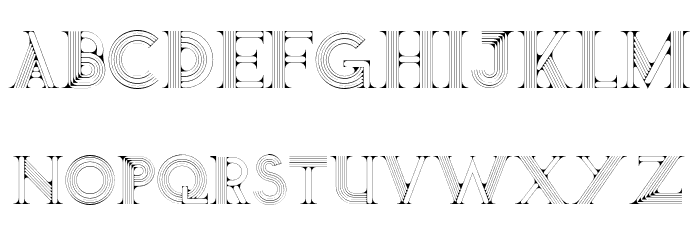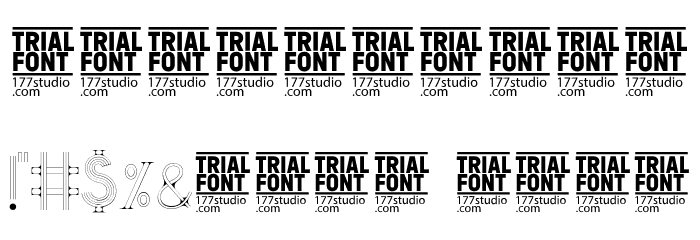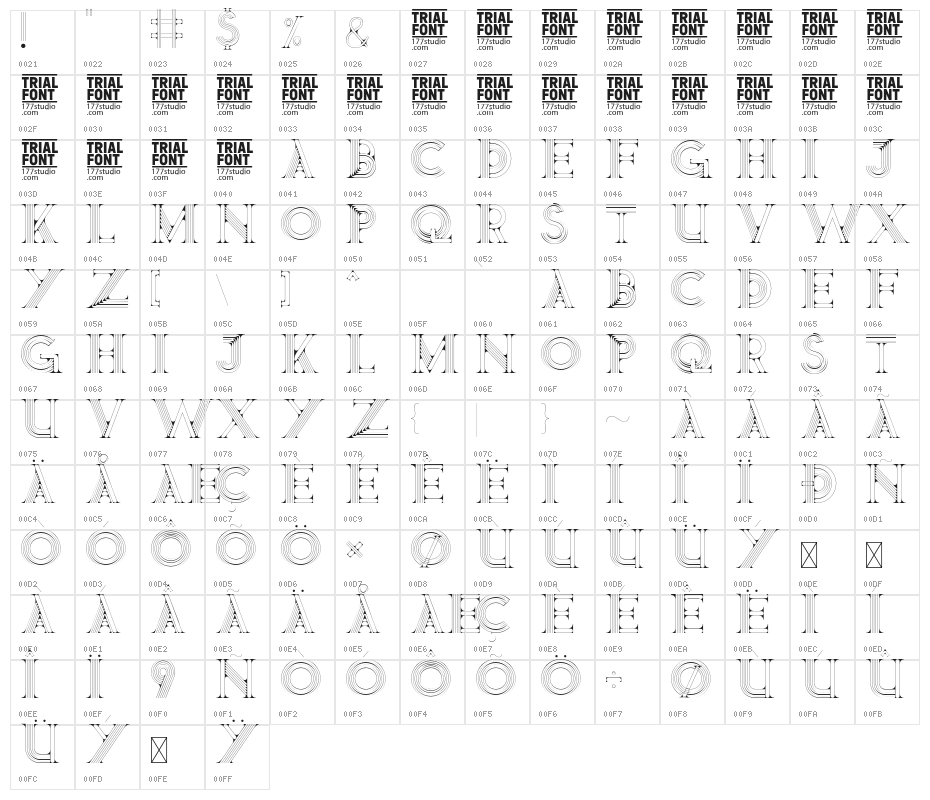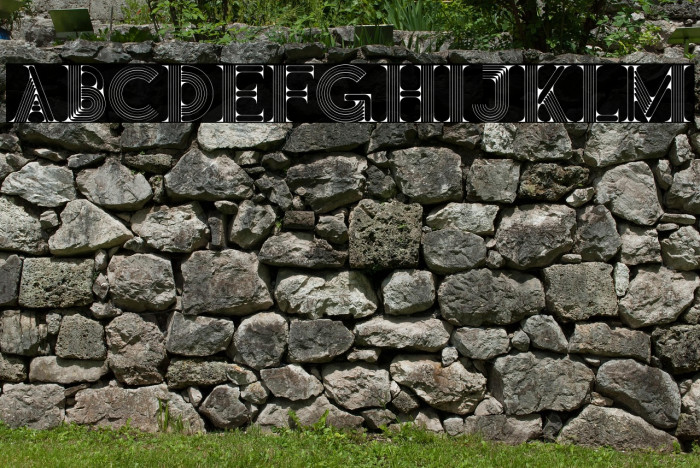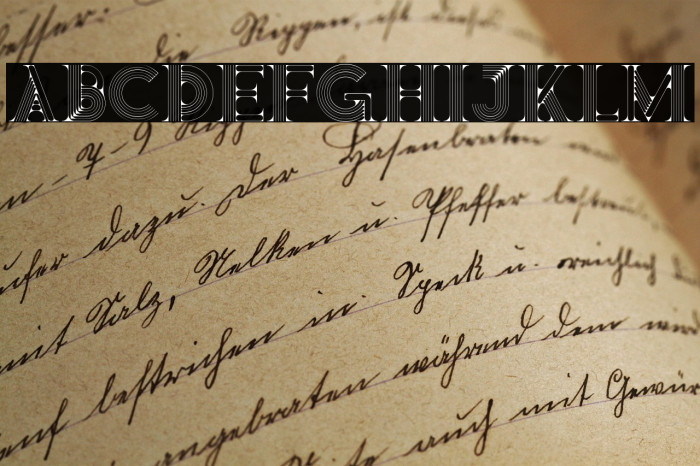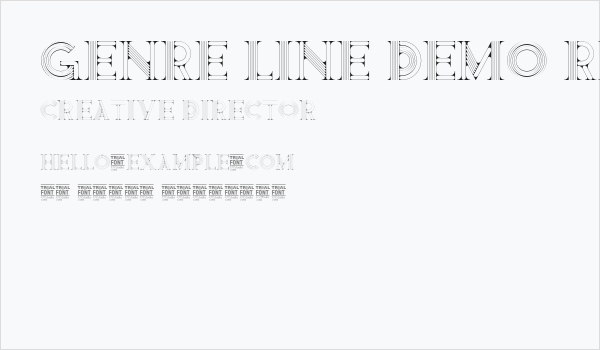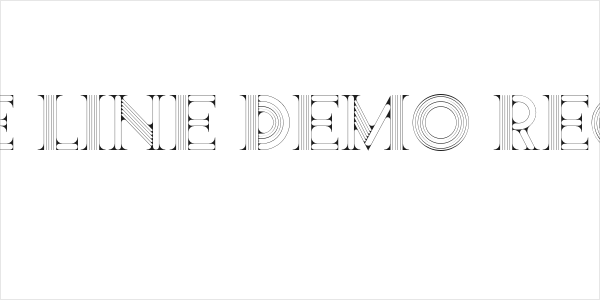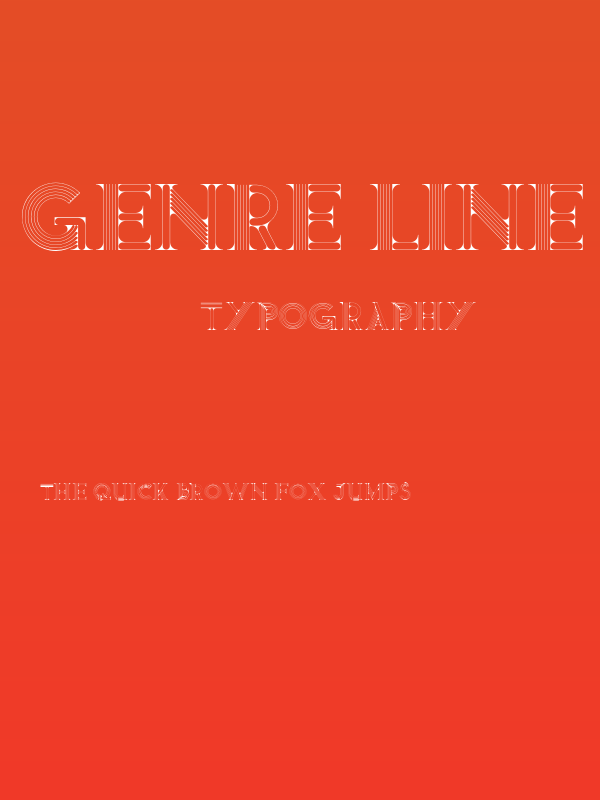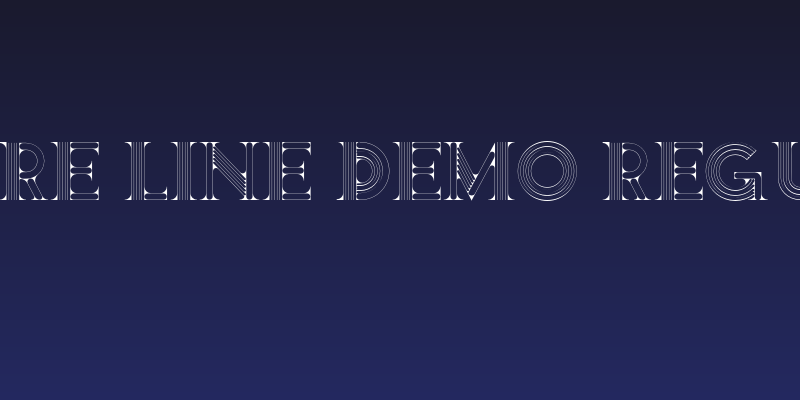
Genre Line Demo Regular Font
This font features a unique and modern design characterized by its multi-line, geometric structure. Each character is composed of several parallel lines, creating a sense of depth and dimension. The uppercase and lowercase letters maintain a consistent style, with clean, sharp edges and a balanced form. The numerals and special characters follow the same design principles, ensuring uniformity across all glyphs. This font's distinct appearance makes it suitable for creative and artistic projects where a bold statement is desired.
A modern, multi-line geometric font with a bold and artistic style.
- Proposed Projects: Ideal for branding, posters, album covers, and any project requiring a striking visual impact.